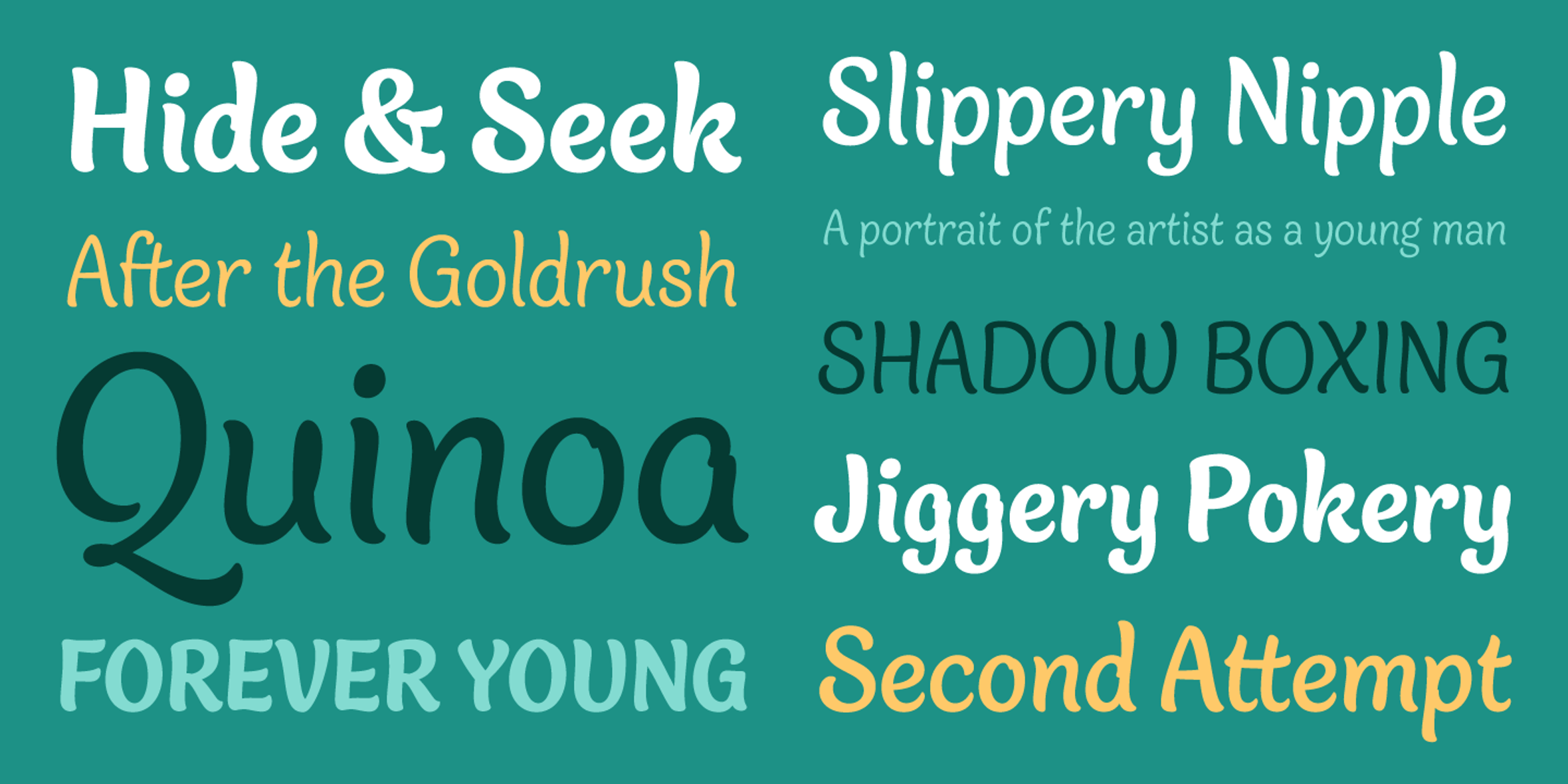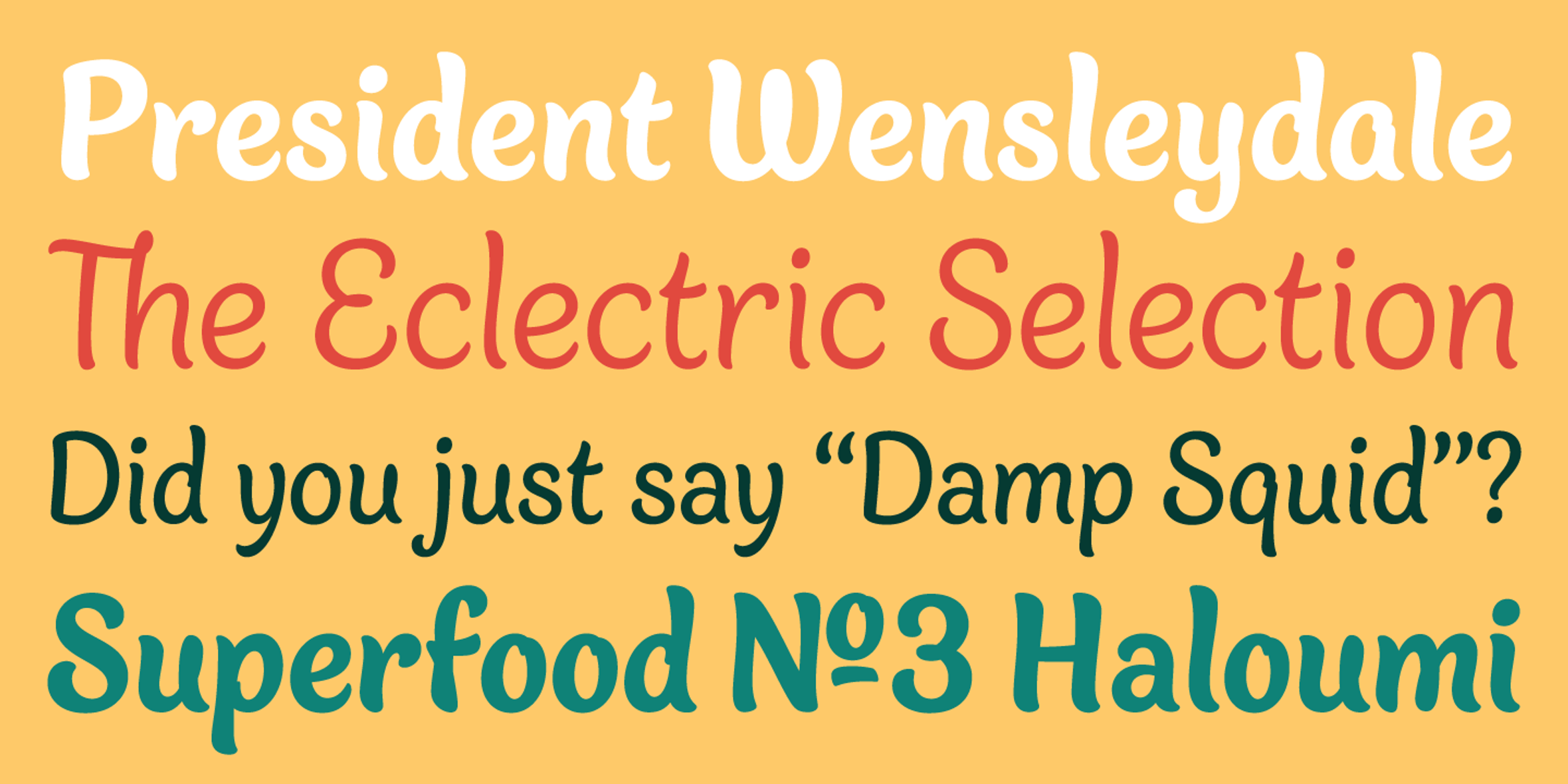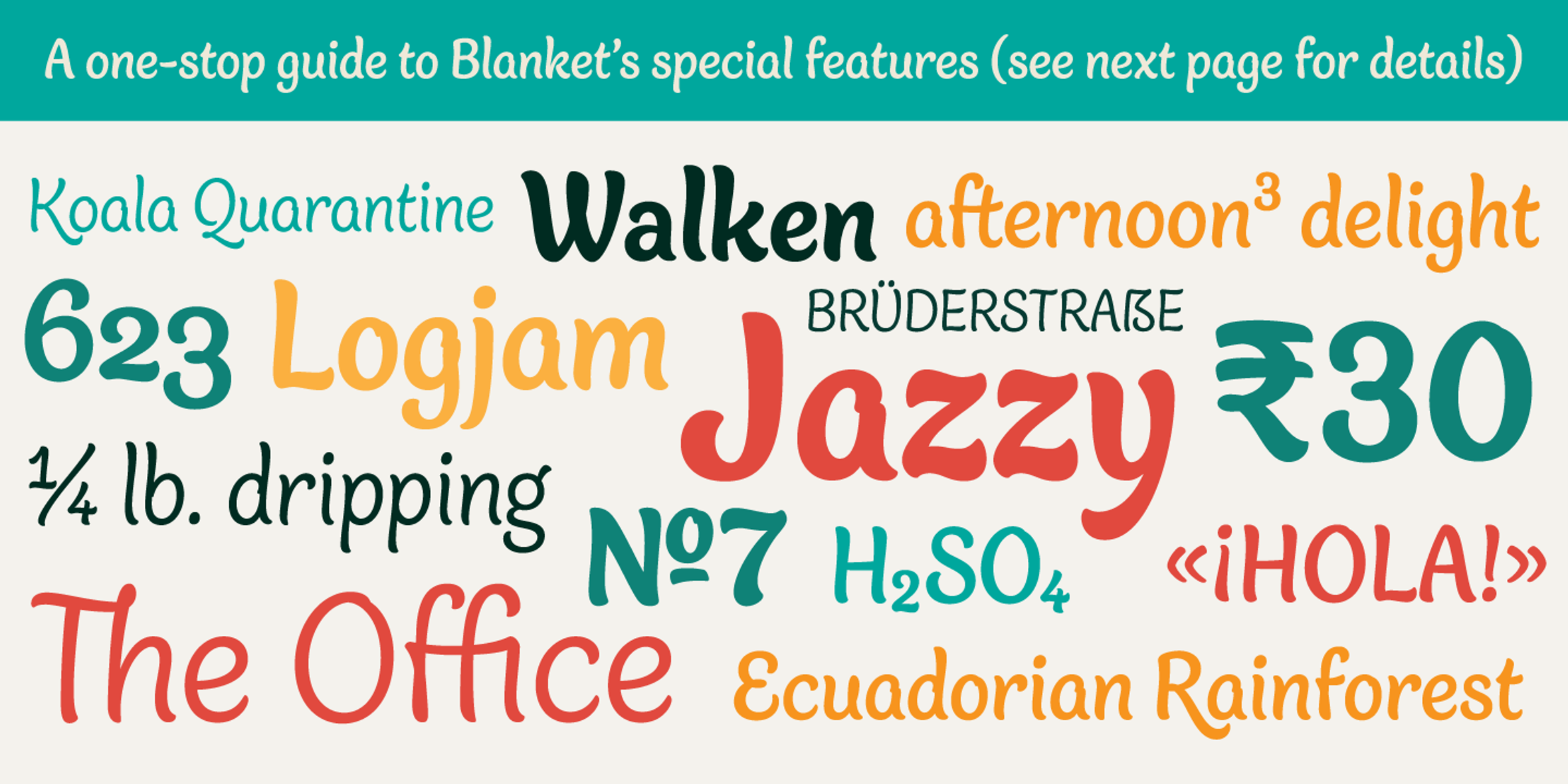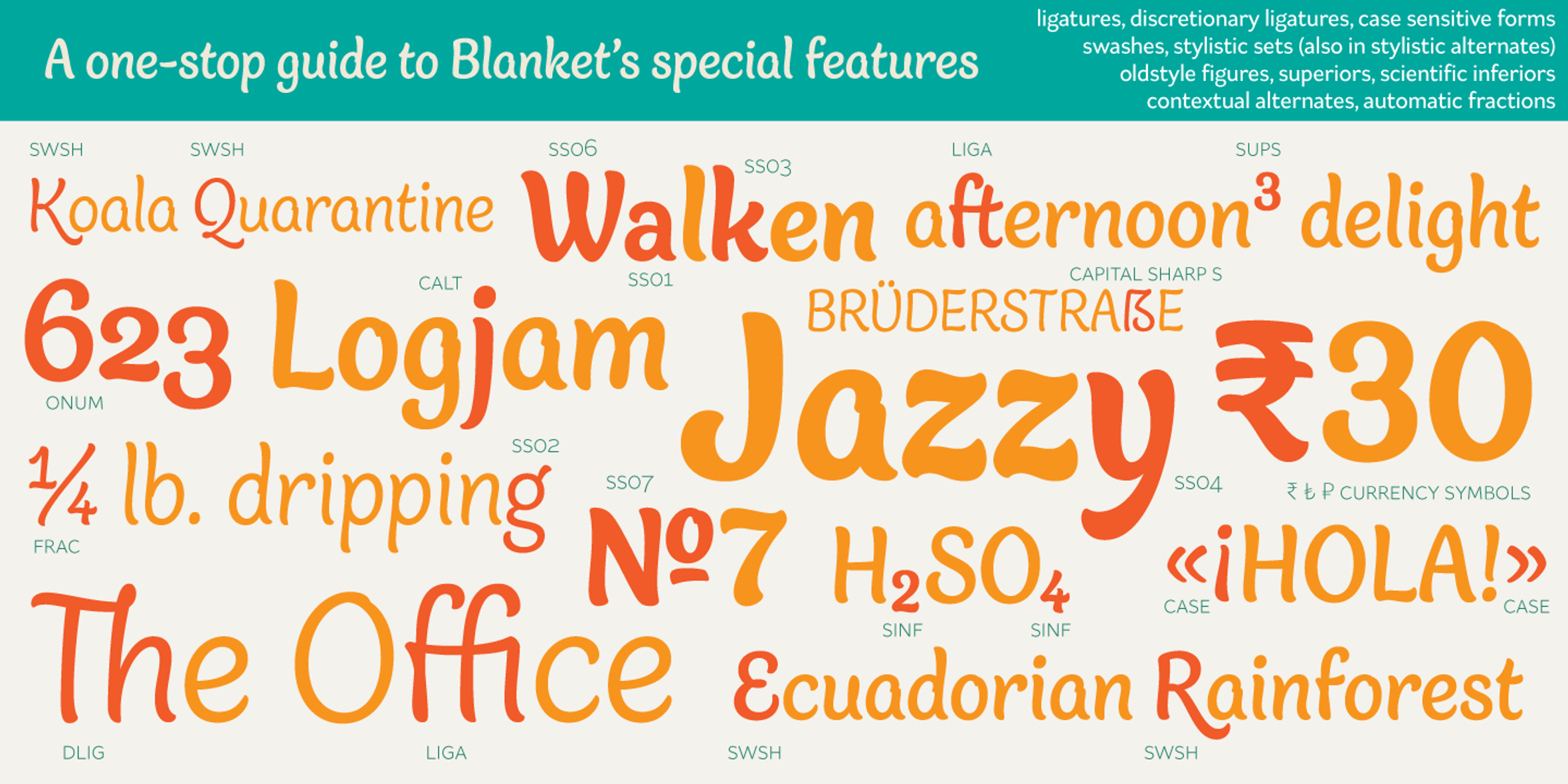
Blanket Light
Blanket Regular
Blanket Medium
Blanket Bold
Blanket Heavy
Blanket
Blanket is a friendly, baby-soft typeface with a gentle slant. With the warmth of an italic but less of the speed, it is designed primarily for use on child-oriented material. Typographically sophisticated, it features a wealth of figure styles, automatic fractions, ligatures, alternates, case-sensitive forms, and a smattering of swashes. Blanket is child-friendly — a typeface fit for children’s books — but the finished product works well anywhere a casual (but not sloppy) look is desired.
- Common Ligatures
- Discretionary Ligatures
- Fractions
- Old Style Numerals
- Stylistic Alternates
- Subscript
- Superscript
- Swashes